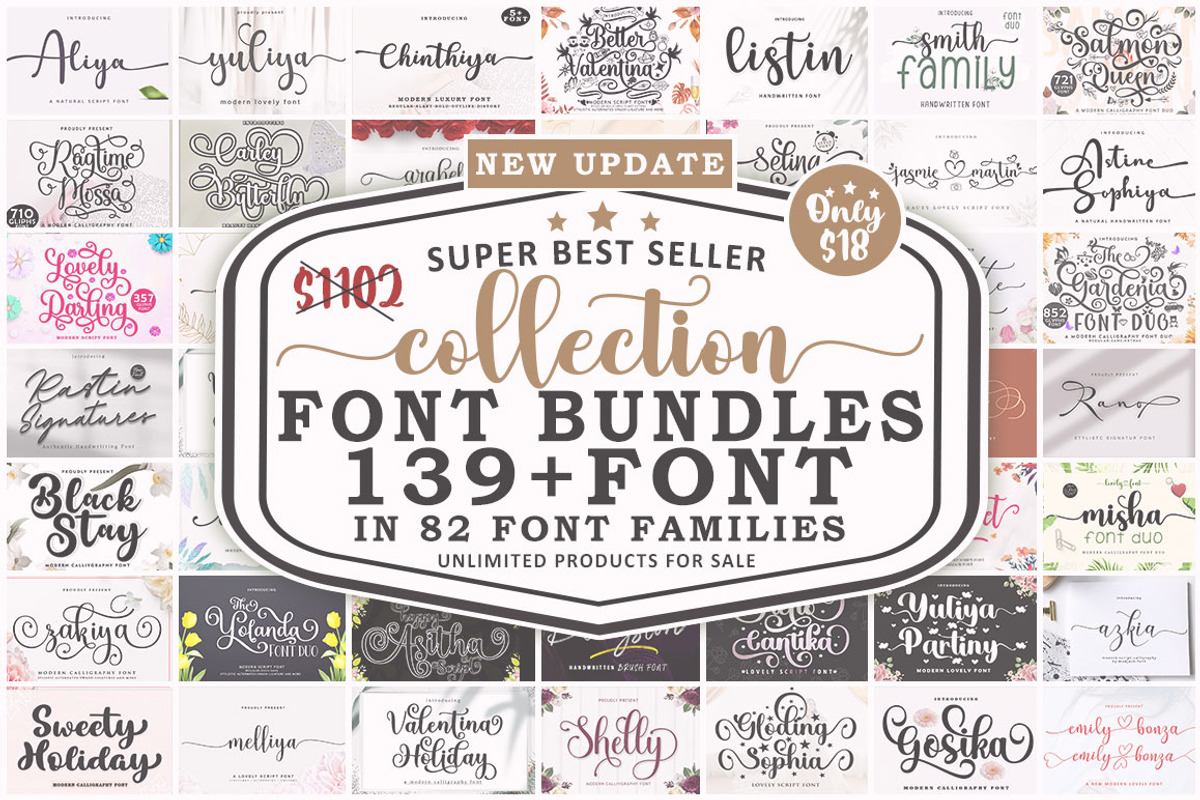
Super Best Seller Collection Bundles Free Download is a comprehensive and carefully curated collection of premium fonts, offering a variety of styles, from elegant scripts to bold display fonts. This bundle is perfect for designers looking to expand their font library with a wide range of versatile typefaces suitable for branding, logo design, invitations, web design, social media graphics, and more.
With a mix of modern, vintage, and creative fonts, the Super Best Seller Collection provides endless possibilities for your typography needs. Whether you're working on high-end branding, event promotions, or personal creative projects, this bundle includes fonts that can adapt to any style or theme.